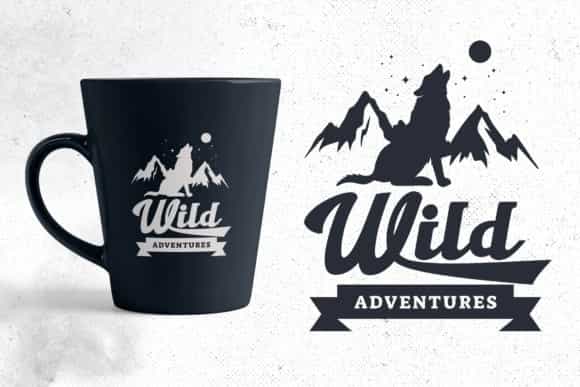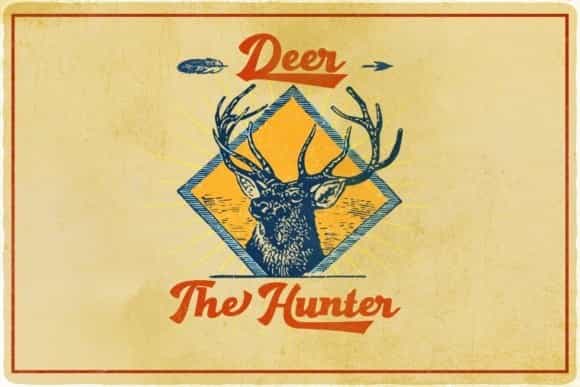
The Gantry Font is a special, retro bold typeface with both cursive and black-letter features. It is a fun, creative touch to any project – especially cards. Greetings cards, posters, Valentine’s Day cards, Christmas/Holiday cards – whatever you call them. It is now being used on one of my Christmas card designs.